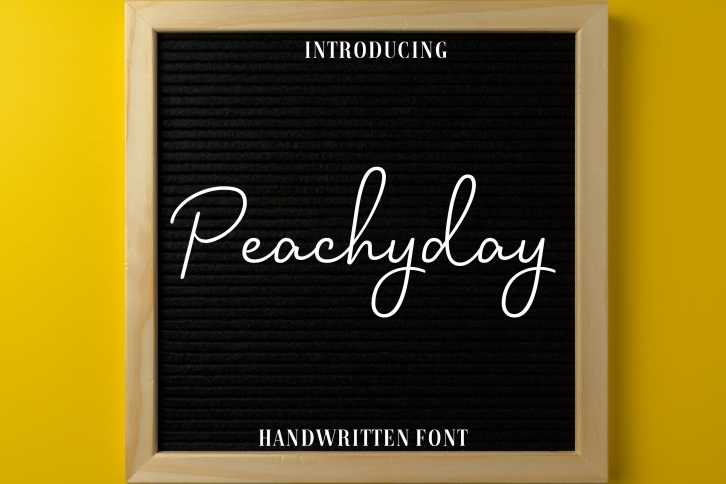
Peachy Day is a lovely and slim script font.
It is perfect for product packaging, branding project, magazine covers, social media, wedding, or just used to express words above the background.